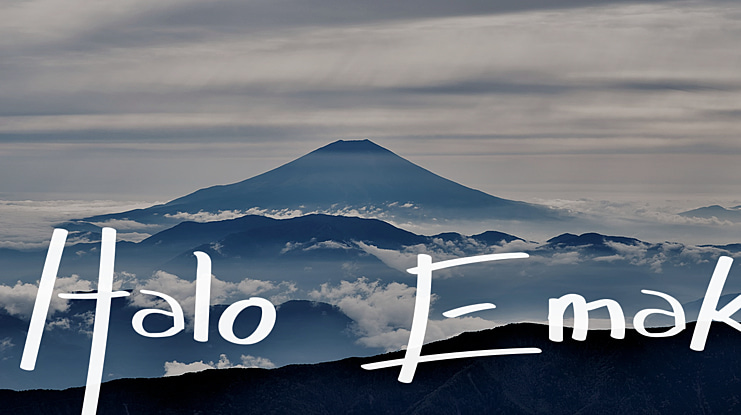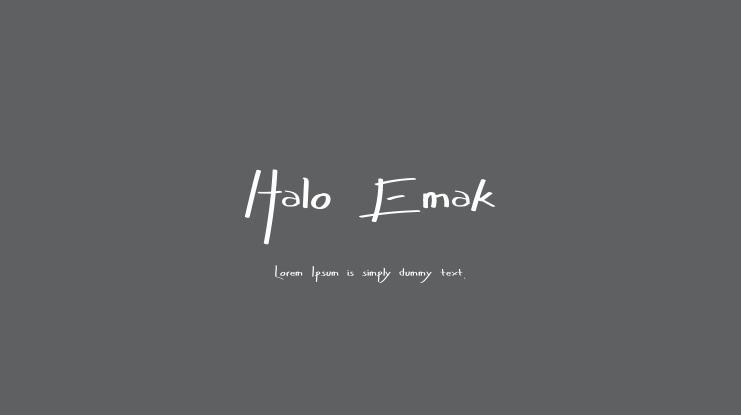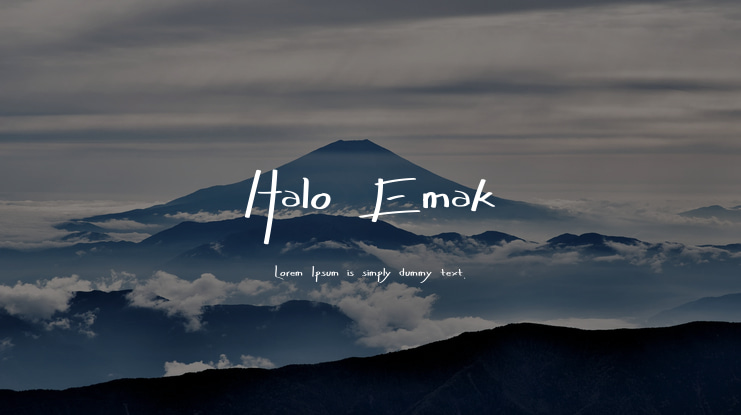
Halo Emak Font
Halo Emak! is a cool display font with a happy and lively theme. With its neat and beautiful arrangement of letters, this typeface will look outstanding in both formal and non-formal designs.